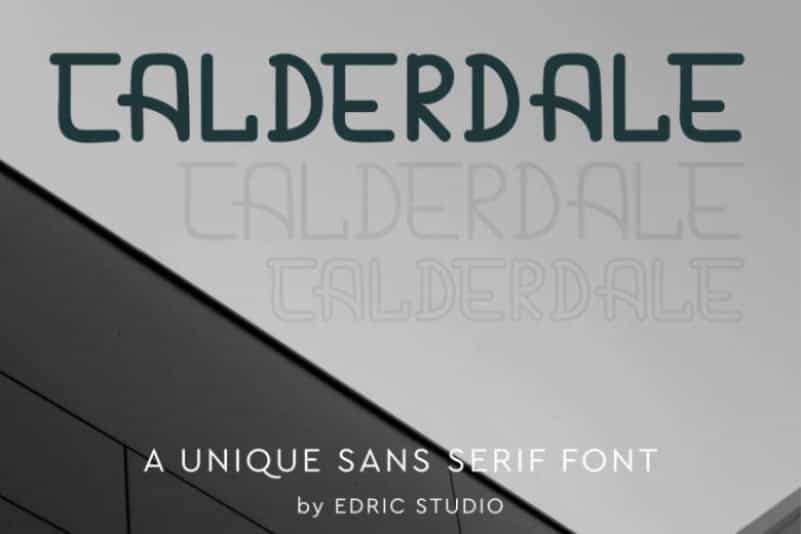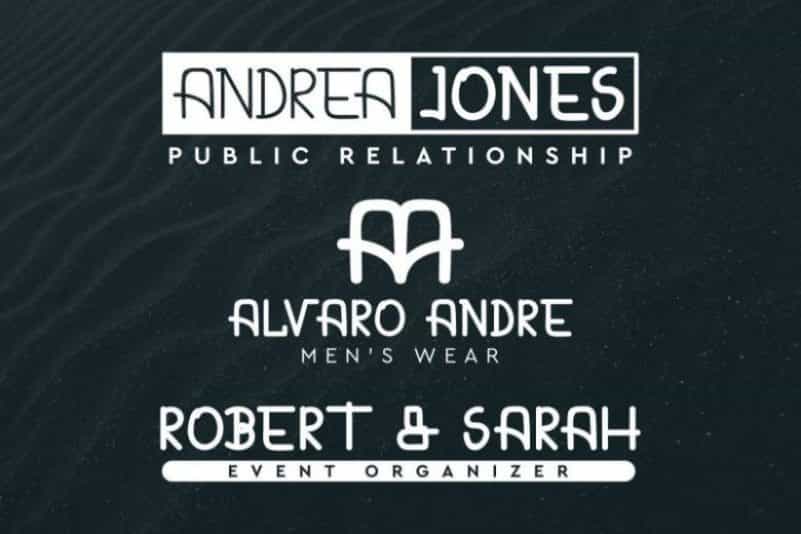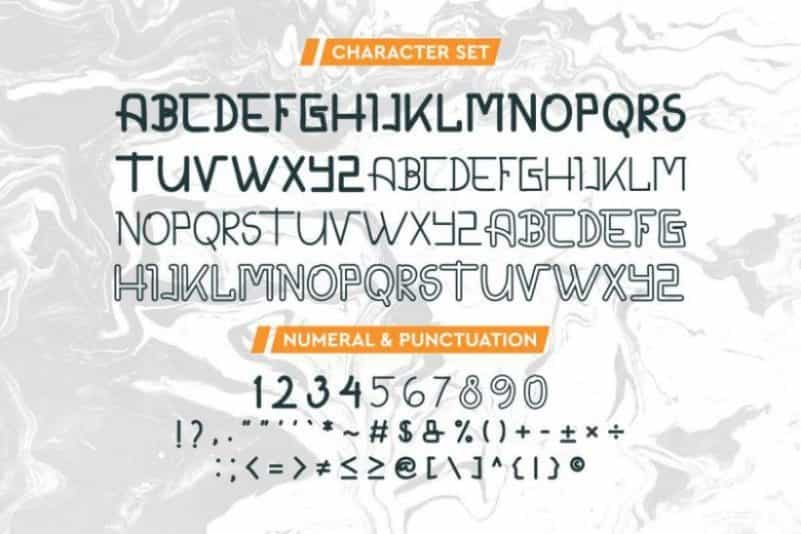
CALDERDALE is a display family font of sans serif. It has contemporary and classy glyphs. Will be Great for branding, headline, logo (with extended license), stationery, business card, signage, flyer, brochure etc. CALDERDALE Font has three styles : regulars, x-light, and x-outline. Moreover, it is compatible with several international languages.